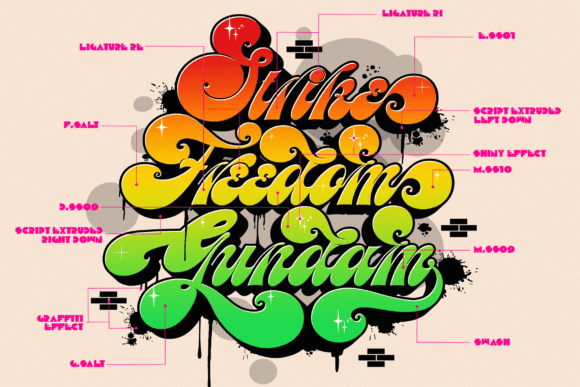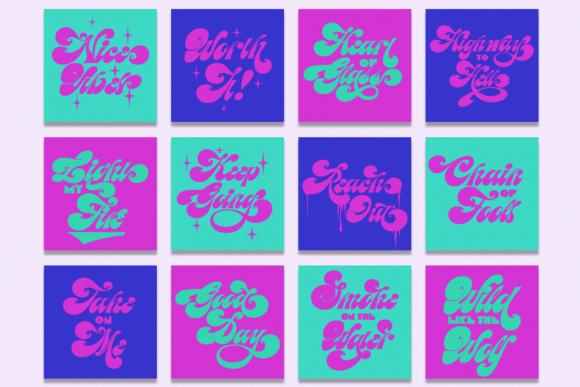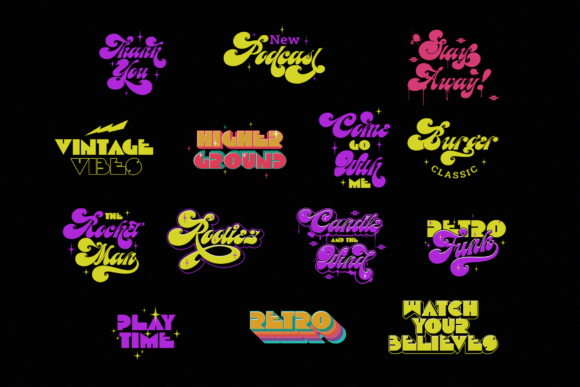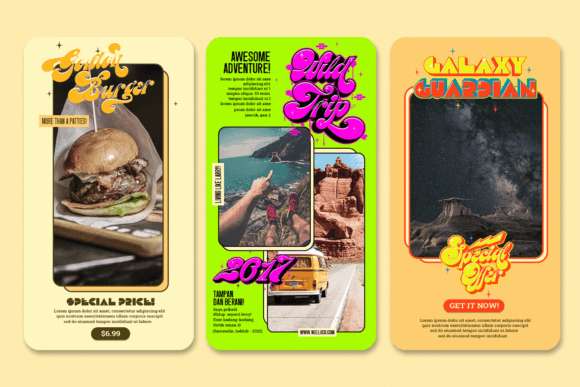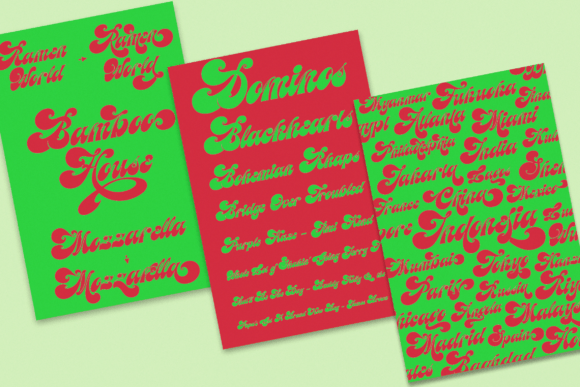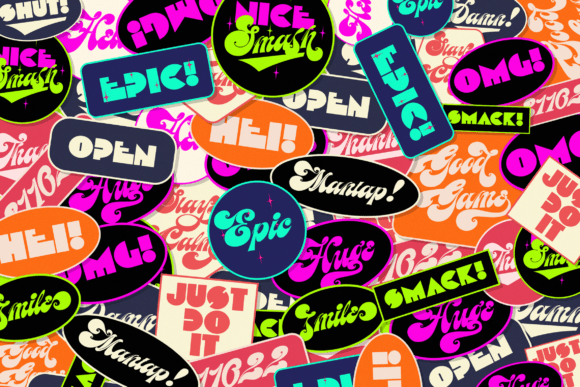
Introduction to Meastro Duo Font
Do you ever find yourself stuck in a design rut, searching for that perfect font to elevate your creative project? I know I have. It’s like trying to find the perfect key to unlock a hidden treasure chest of visual magic. But then, I stumbled upon the Meastro Duo Font – a groovy, retro-style font duo that’s about to become your new best friend.
With its display and bold script options, Meastro Duo Font is the perfect addition to any design resource. Whether you’re working on a free download or a high-end commercial project, this font is sure to bring a touch of sophistication and style to your design. Plus, with its PUA encoding, you can access all the glyphs and ligatures with ease, making it a valuable asset for designers looking to take their work to the next level.
Key Features of Meastro Duo Font
- Unique, hand-drawn design with a modern and elegant feel, perfect for creative projects.
- Includes a wide range of characters, including uppercase and lowercase letters, numbers, and punctuation.
- Perfect for a variety of design applications, including logos, branding, and typography-based creative projects.
Honest Review: Meastro Duo Font
I recently came across the Meastro Duo Font and was excited to dive in and explore its features. As a designer, I’m always on the lookout for high-quality design resources to elevate my creative projects.
One of the standout features of the Meastro Duo Font is its versatility. The font is available in a range of styles, from modern to elegant, making it perfect for a variety of design projects. ✨ The font also includes a transparent background option, which is a huge plus for designers who want to customize their designs without any distractions.
Here are some of the things that work well with the Meastro Duo Font:
- High-quality design with precise details
- Transparency option for customizable designs
- Some users may find the font a bit too ornate for certain design projects
- The font may not be suitable for designs that require a lot of bold text
Overall, I’m impressed with the Meastro Duo Font and would definitely recommend it to designers who are looking for a high-quality design resource for their creative projects. It’s a great addition to any design toolbox and can help take your designs to the next level.
To get the most out of Meastro Duo Font, use it with a transparent background to create a clean and modern look. Experiment with different font sizes, colors, and combinations to create unique designs.
Meastro Duo Font is suitable for a variety of design projects, including branding, logos, and digital graphics. Its high-quality design makes it an excellent choice for creative professionals and hobbyists alike.